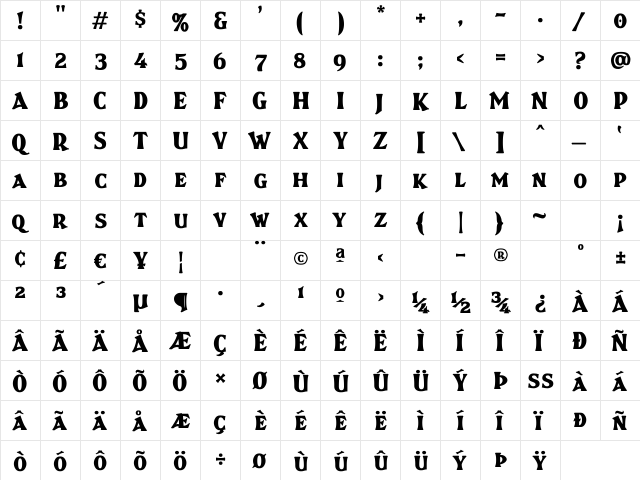
Brasspounder SC Regular
| Foundry | Objets Dart |
| Designer | Darren Rigby |
Design Context for Brasspounder SC Typeface
Brasspounder SC is a composed and adaptable typeface that performs quietly and consistently across a wide range of design contexts.